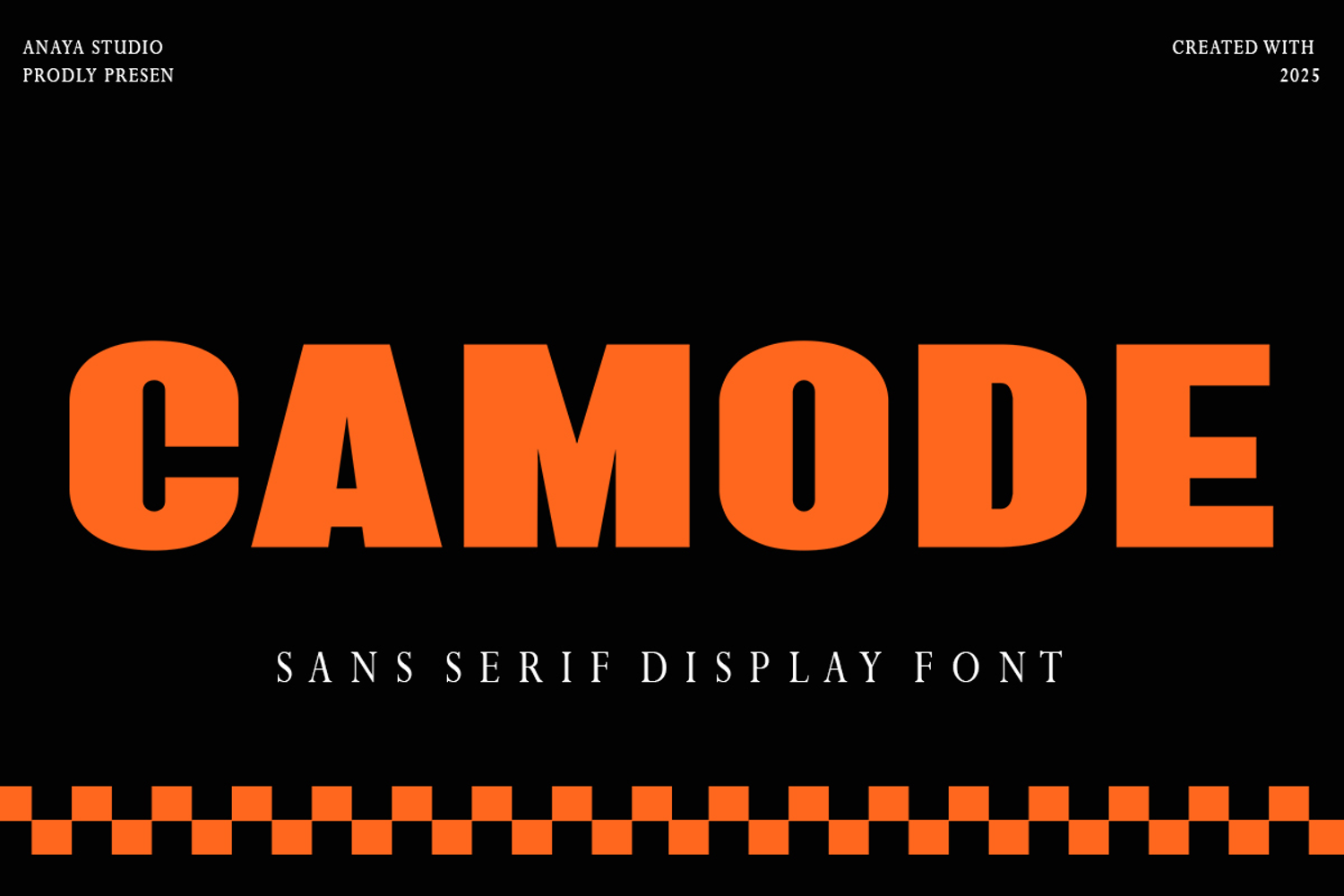
Camoda is a bold, rounded sans-serif typeface with a bubbly and playful personality. Designed to grab attention while remaining friendly and easy to read, Camoda is perfect for branding, kids-related products, food packaging, poster headlines, and bold advertising.
Camoda features fun ligatures, multilingual support, punctuation, and numerals — making it both expressive and functional. Its heavy, geometric curves and consistent rhythm give it a confident look that works especially well in high-impact contexts like social media graphics, food brands, and loud typographic layouts.